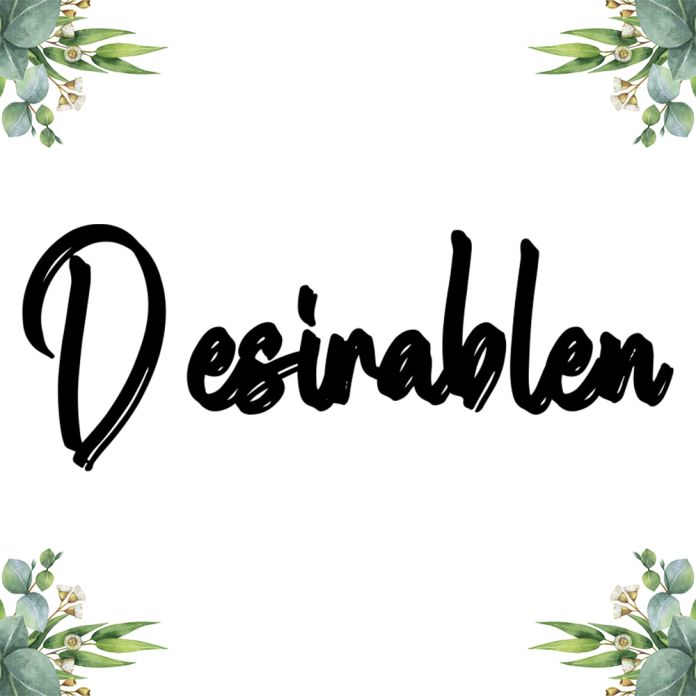
Desirablen Fonts
Desirablen is a dainty and flowing handwritten font.
Sweet and joyful, this font will be ideal for writing wedding invitations, cards, or any other design that may need a romantic, personalized touch!